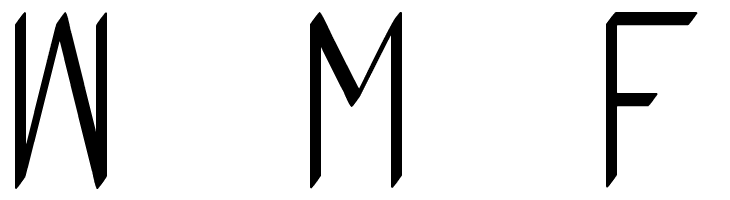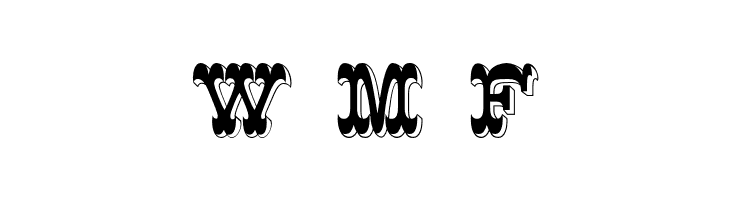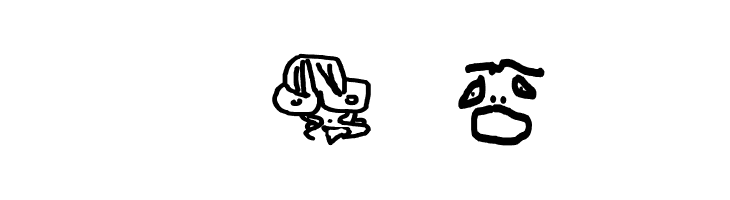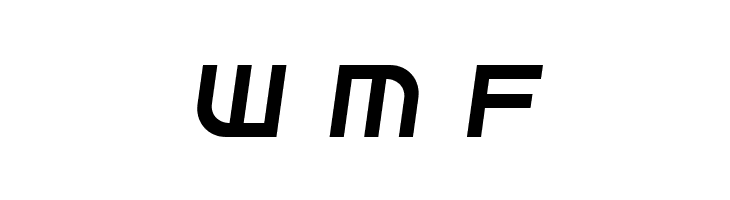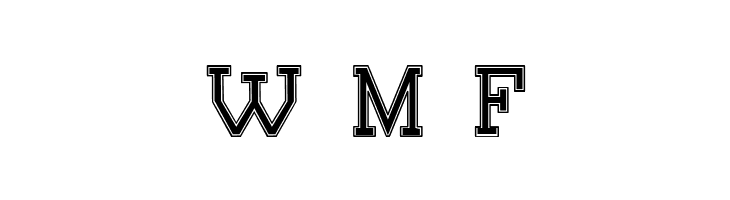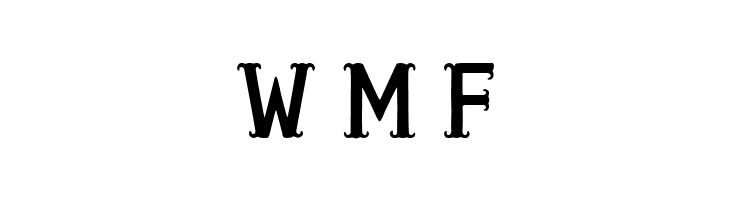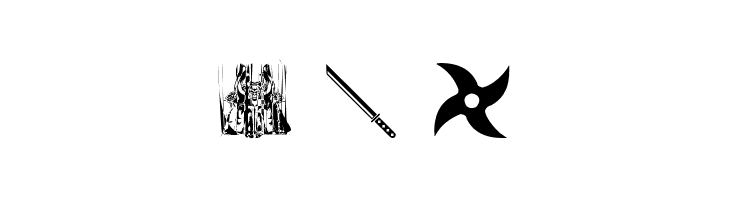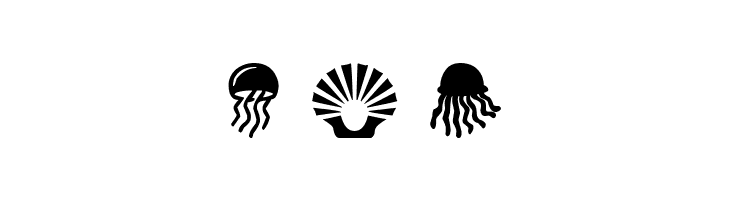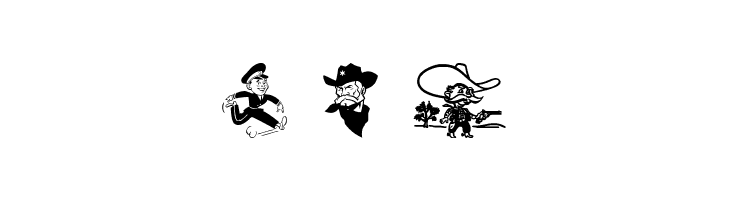
A modern, geometric font with angular and slightly condensed forms.
A bold, decorative font with intricate detailing and a playful style.
A surreal, erotic-themed decorative symbol font with bold, abstract illustrations.
A sleek, modern italic font with geometric precision and smooth curves.
A bold, double-line outlined font with a structured and symmetrical design.
A bold dingbat font with diverse sports and fitness pictograms.
A bold, decorative serif font with a vintage flair.
A bold decorative dingbat font with ninja and samurai iconography.
A decorative dingbat font of bold sea life silhouettes.
Sheriff and Wild West icon-based decorative font.